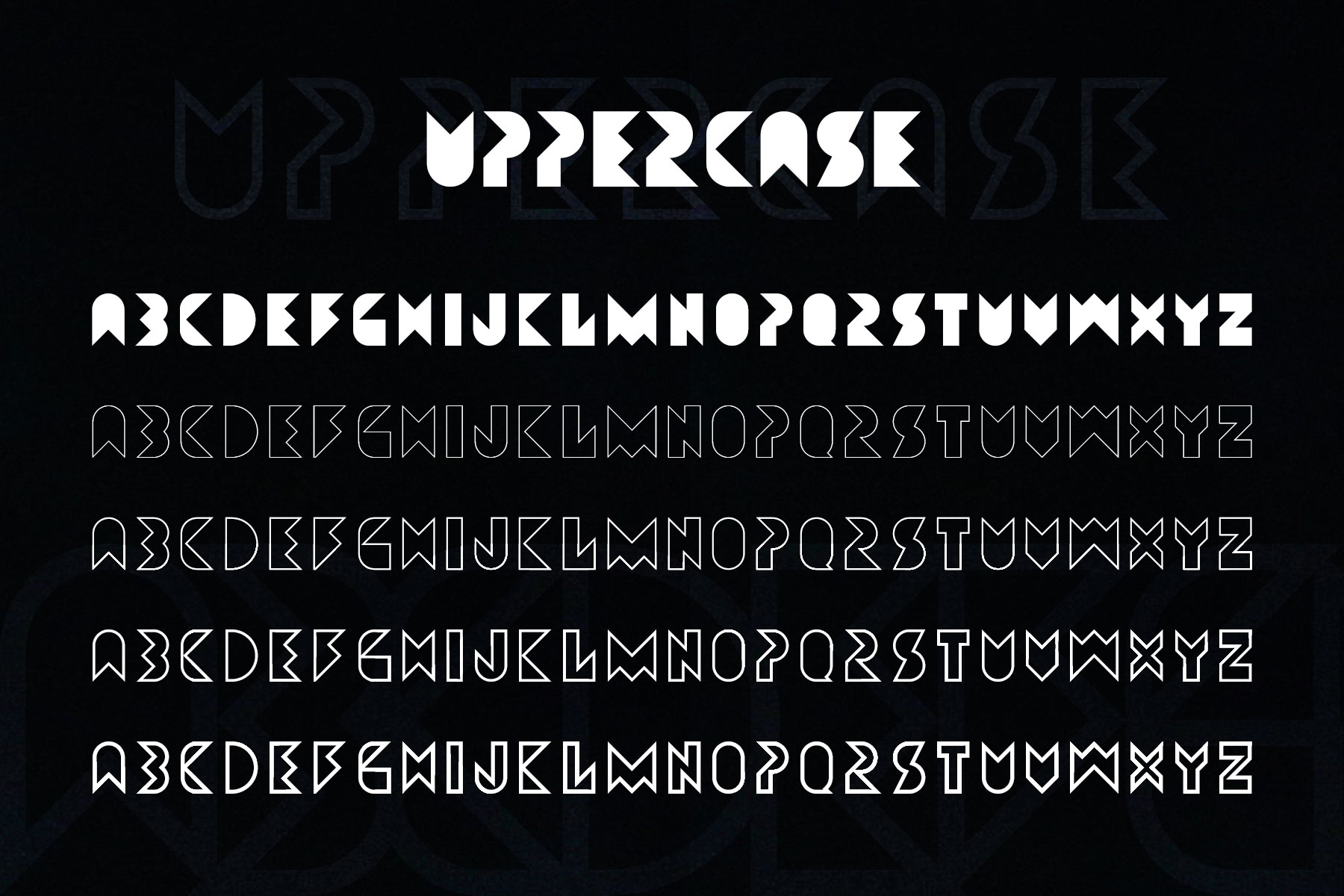
After Headache, comes Amneziak..
Amneziak is a new multi-style display typeface that I have recently developed. Took me less than a lunch break to develop the first style – the Regular uppercase letters – therefore I wanted to share it with you, as a freebie. After developing that first style, I worked a bit more on it and managed to make it in 5 weights (one full bodied style and four lined) and it two styles (activated by writing with uppercase or lowercase letters).
What are the differences between the two styles?
The uppercase activated style is based on straight angles to define letters, while lowercase activated style has round shapes to do the same thing.
Quick fact about this font: I started by creating a rectangle with a 1:1,618 ratio (the golden ratio) on which I have based mostly all letters (except for M, W and I). You can try that as well.